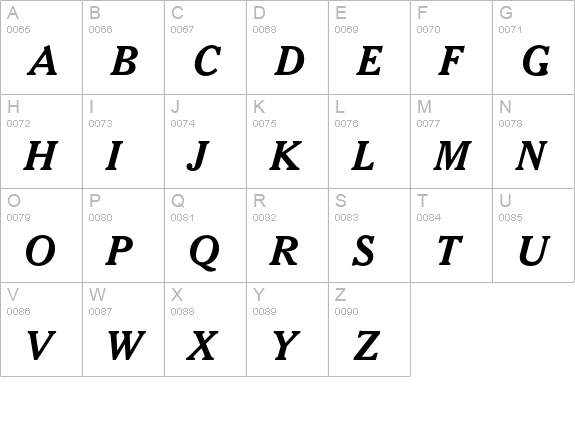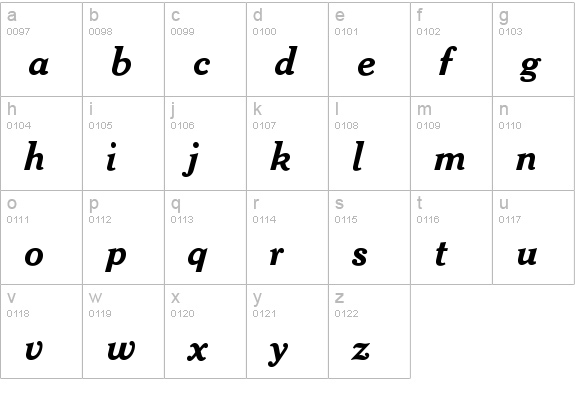
Cheltenham Bold Italic is a strong, high-contrast, italic variant in the Cheltenham typeface family \xE2\x80\x94 well suited to headlines, attention-grabbing titles, and strong calls-to-action.
Cheltenham Bold Italic is a timeless and elegant font that exudes sophistication and professionalism. Its bold yet flowing italic design adds a touch of flair to any project, making it a perfect choice for headings, titles, and emphasis. The strong and impactful appearance of Cheltenham Bold Italic commands attention and leaves a lasting impression on the reader. Not only does Cheltenham Bold Italic possess a classic and refined aesthetic, but it also offers versatility and readability across various applications. Whether used in print or digital media, this font effortlessly conveys a sense of style and authority. Best of all, Cheltenham Bold Italic is available for free download at FontsMarket.com. This means that you can enhance your designs with this exceptional font without any cost, making it a valuable addition to your typographic toolkit. Don't miss out on the opportunity to elevate your projects with the timeless beauty of Cheltenham Bold Italic.